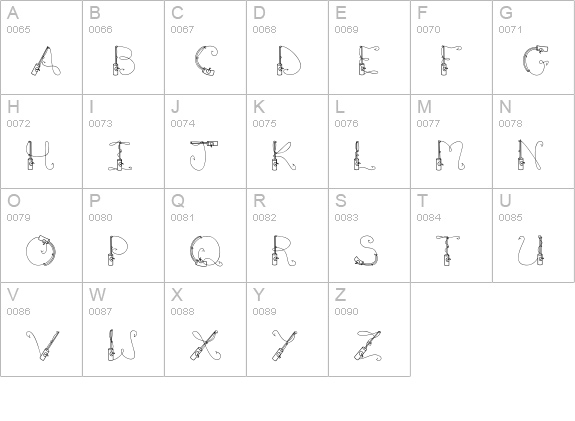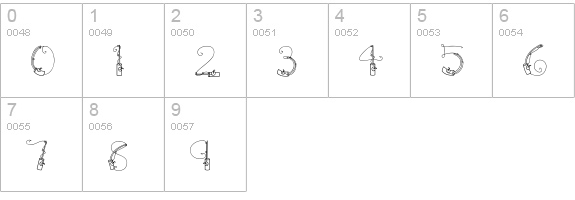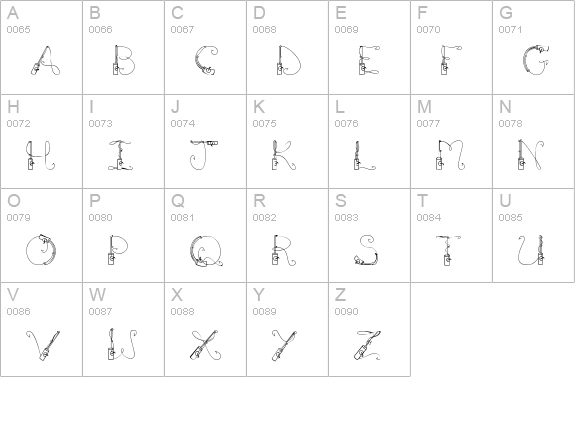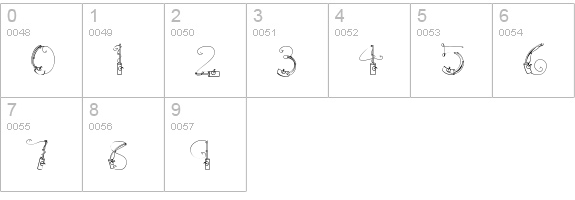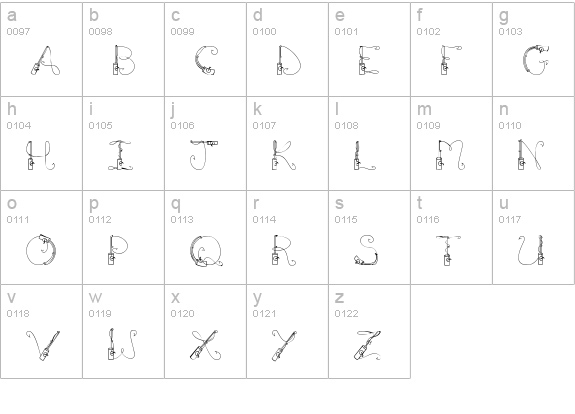
CK Fishing Pole Font Details
Introducing CK Fishing Pole font, a delightful and playful typeface perfect for adding a touch of whimsy to your designs. This font features charming fishing hook-inspired lettering that is sure to reel in attention. With its unique design and quirky personality, CK Fishing Pole font is ideal for various projects such as invitations, posters, logos, and more. The best part? CK Fishing Pole font is completely free to download at FontsMarket.com. Simply visit the website and start using this fun and creative font in your projects today. Let CK Fishing Pole font be the catch of the day for your next design endeavor!